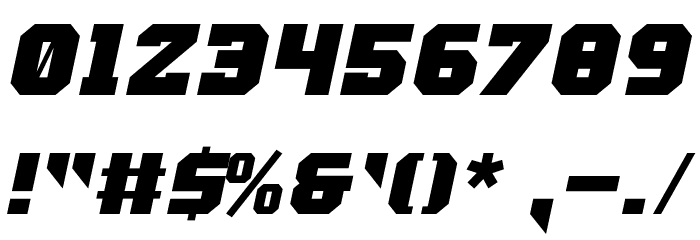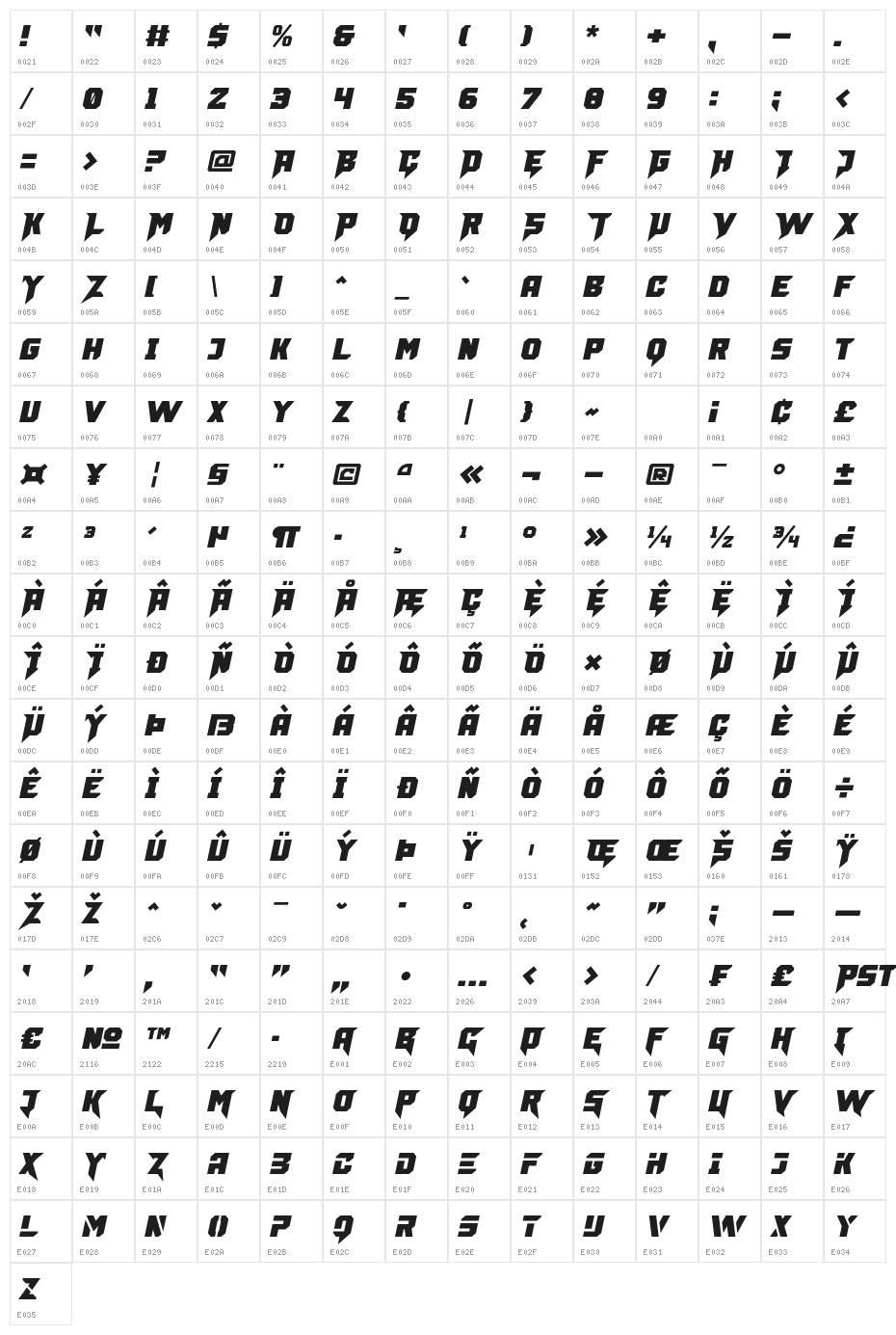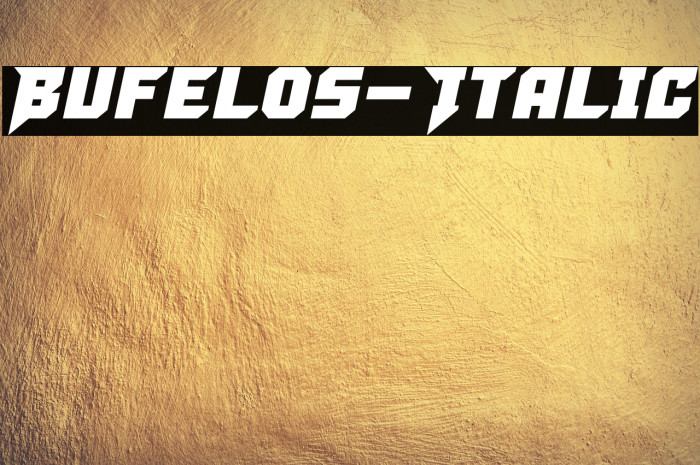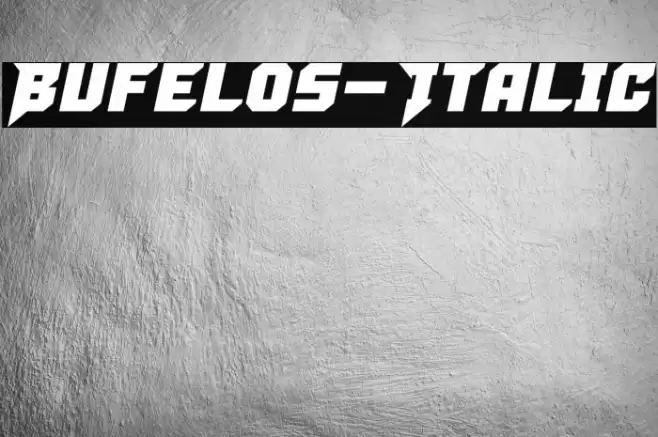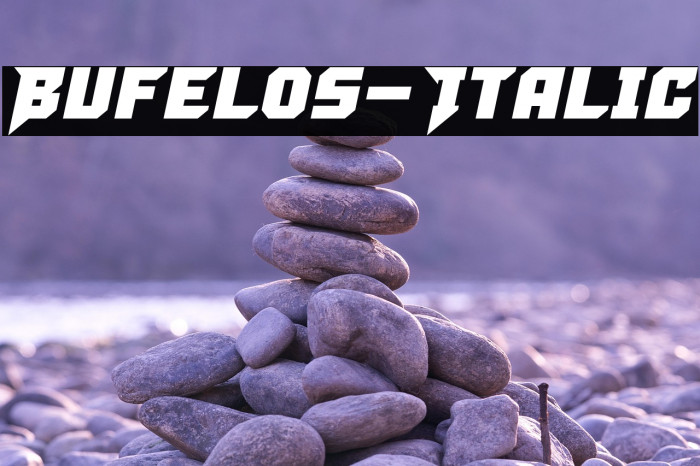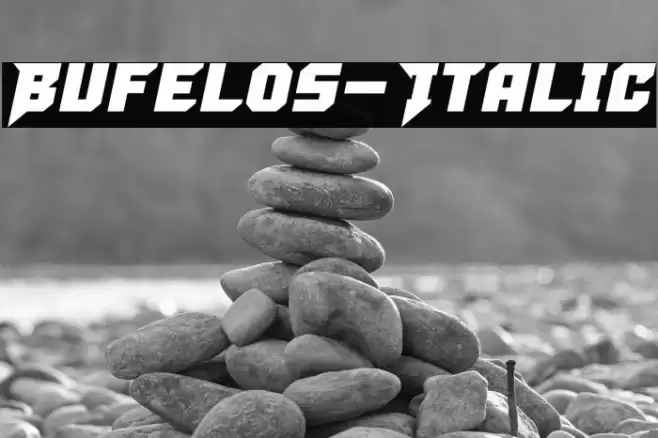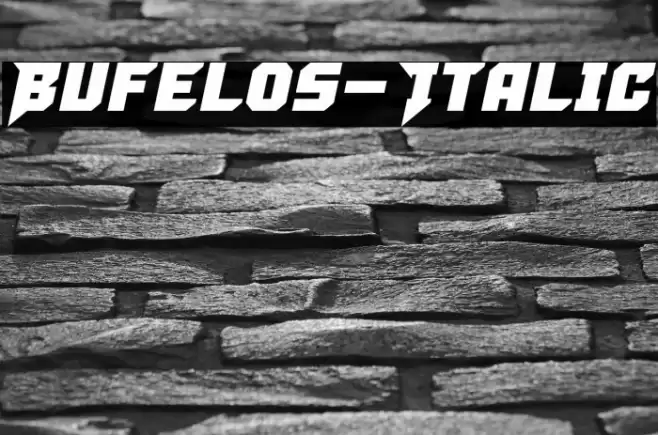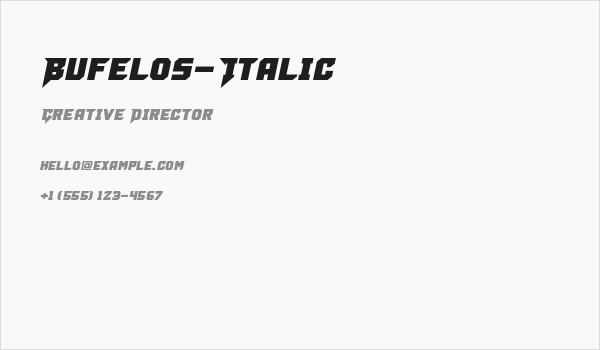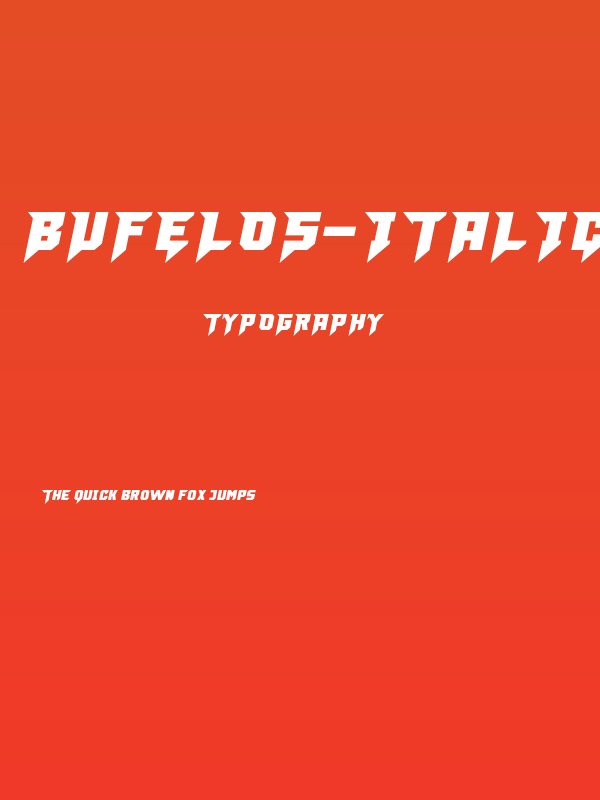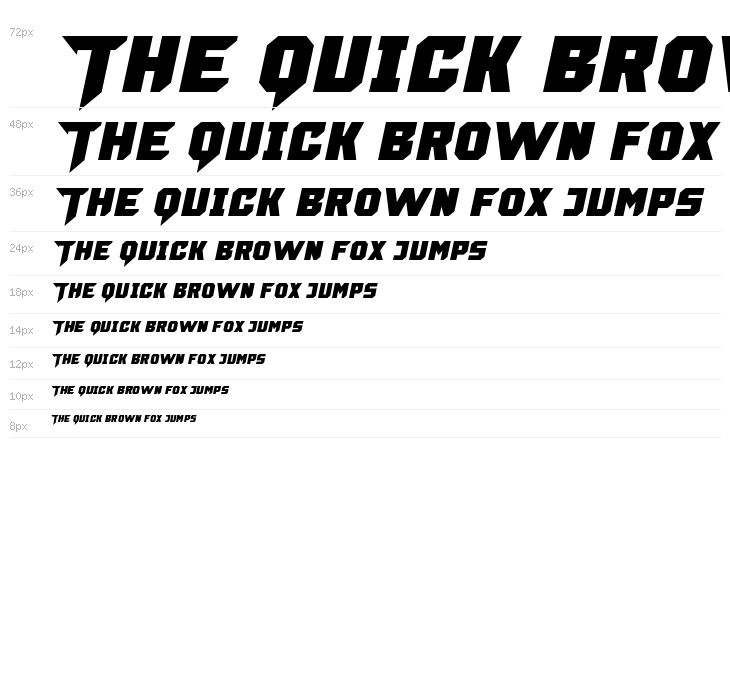
Bufelos-Italic Font
Bufelos-Italic Description
This font features a bold and dynamic design with sharp, angular edges and a distinct italic slant. The characters are robust and convey a sense of energy and movement, making them ideal for attention-grabbing headlines or impactful logos. The uppercase and lowercase letters maintain a consistent style, with a strong emphasis on geometric shapes and a futuristic aesthetic. The numbers and special characters are equally bold, ensuring uniformity across all text elements. This font's unique style is perfect for projects that require a modern and edgy look.
| Proposed Projects | Ideal for sports branding, video game titles, dynamic posters, and modern advertising campaigns. |